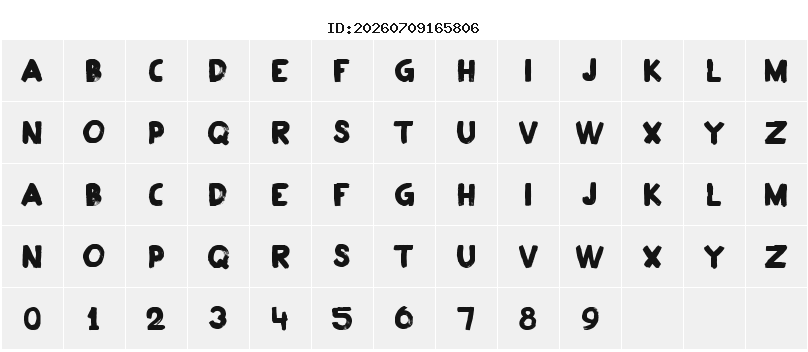
• Font Name: DK Plakkaat
• Designer: David Kerkhoff
About DK Plakkaat.ttf
DK Plakkaat.ttf is a modern, elegant sans-serif font designed for ultimate readability and visual harmony. Perfect for branding, headlines, web design, and print materials.